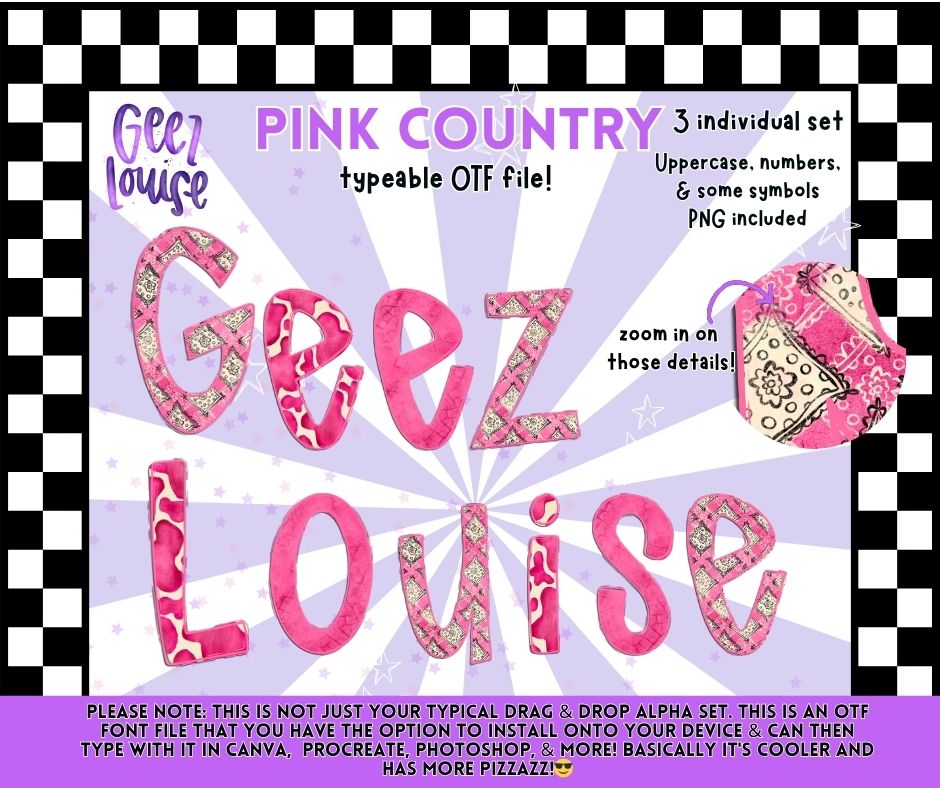
Pink Country OTF Font | Western Bandana Typeface | Printable Font + PNG Alpha Set | Typeable Cricut & Canva Font
Saddle up… but make it PINK 💖🤠
This Pink Country OTF Font is bringing all the western vibes—bandana patterns, bold textures, and that soft-but-sassy country aesthetic that works on everything from tees to tumblers.